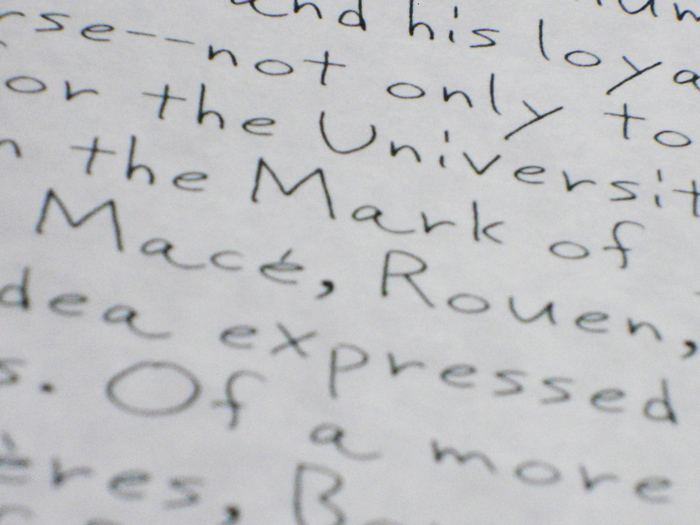
Proto Uncertain
sugargliderz: Proto Uncertain: 2006
I wrote it with a ball-point pen without a brand. The day when I wrote this "uncertain-Feb ballpointpen" is February 18, 2006.